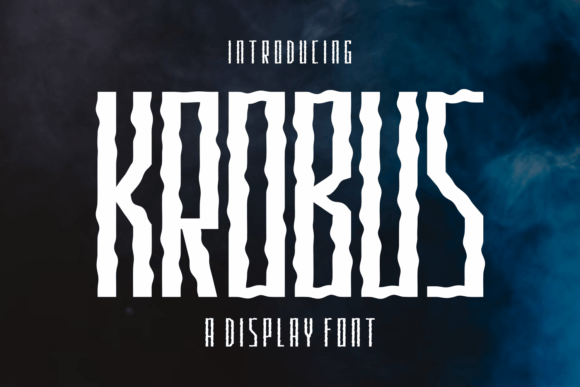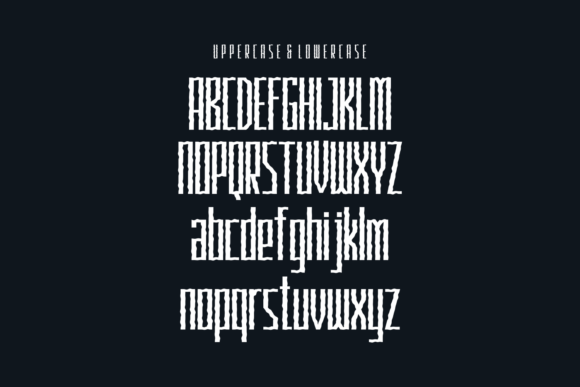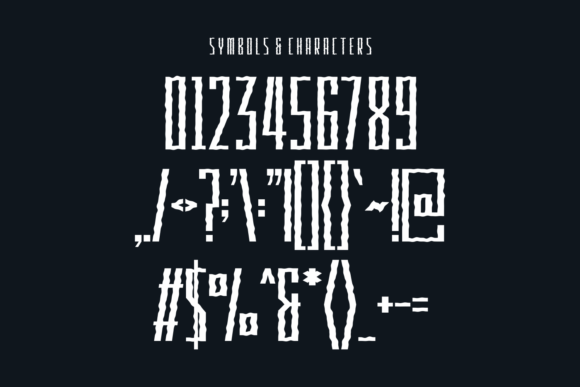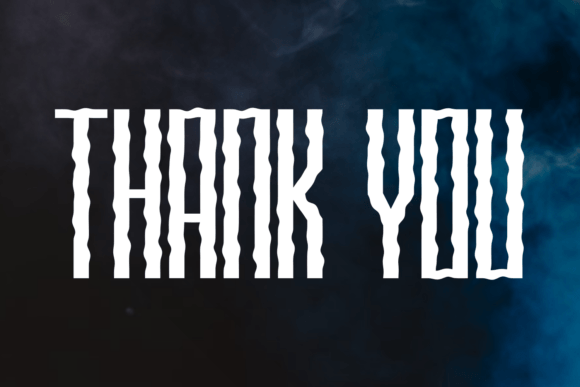
Introduction to Krobus Font
Have you ever been browsing through design inspiration and stumbled upon a project that just makes your heart skip a beat? That’s exactly what happened when we discovered the Krobus Font. This captivating display font is more than just a pretty face – it’s a game-changer for designers looking to add a dynamic and modern touch to their work.
With its wavy flair and sleek design, the Krobus Font is perfect for eye-catching headlines, creative signage, or any project where a playful yet stylish vibe is desired. Whether you’re working on a high-profile campaign or a personal creative project, this font is sure to make your text stand out from the crowd.
Krobus Font
- Unique, hand-drawn design perfect for creative projects and artistic expressions
- High-quality font with transparent background, ideal for digital designs and illustrations
- Includes multiple font styles and weights, offering versatility for various creative applications
- Perfect for use in graphic design, digital art, and other creative projects where a unique, artistic touch is desired
Honest Review: Krobus Font
One of the standout features of the Krobus Font is its high quality design. It’s perfect for creative projects that require a unique touch. The font’s transparent background allows for seamless integration with other design elements.
However, there are a few limitations to consider. The font’s limited character set may not be ideal for projects that require a wide range of characters.
- ⚠️ Limited character set may not be suitable for all projects
- ⚠️ Not as versatile as some other fonts in the market
Overall, I’d say the Krobus Font is a solid choice for designers looking for a unique and high-quality font. While it may not be perfect for every project, it’s definitely worth considering for your next creative endeavor.
Krobus Font
Tips for Getting the Most Out of Krobus Font
To get the most out of the Krobus Font, use it in conjunction with other high-quality design resources. Experiment with different font sizes, colors, and styles to create a unique look.
The Krobus Font is perfect for use in business cards, brochures, flyers, and other marketing materials. It’s also great for use in social media graphics, blog posts, and website content.